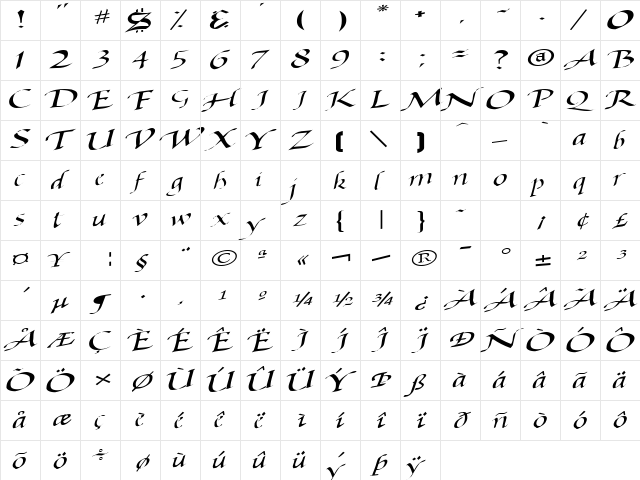
Baggage Regular
Design Context for Baggage Typeface
Baggage is a composed and adaptable typeface that performs quietly and consistently across a wide range of design contexts.